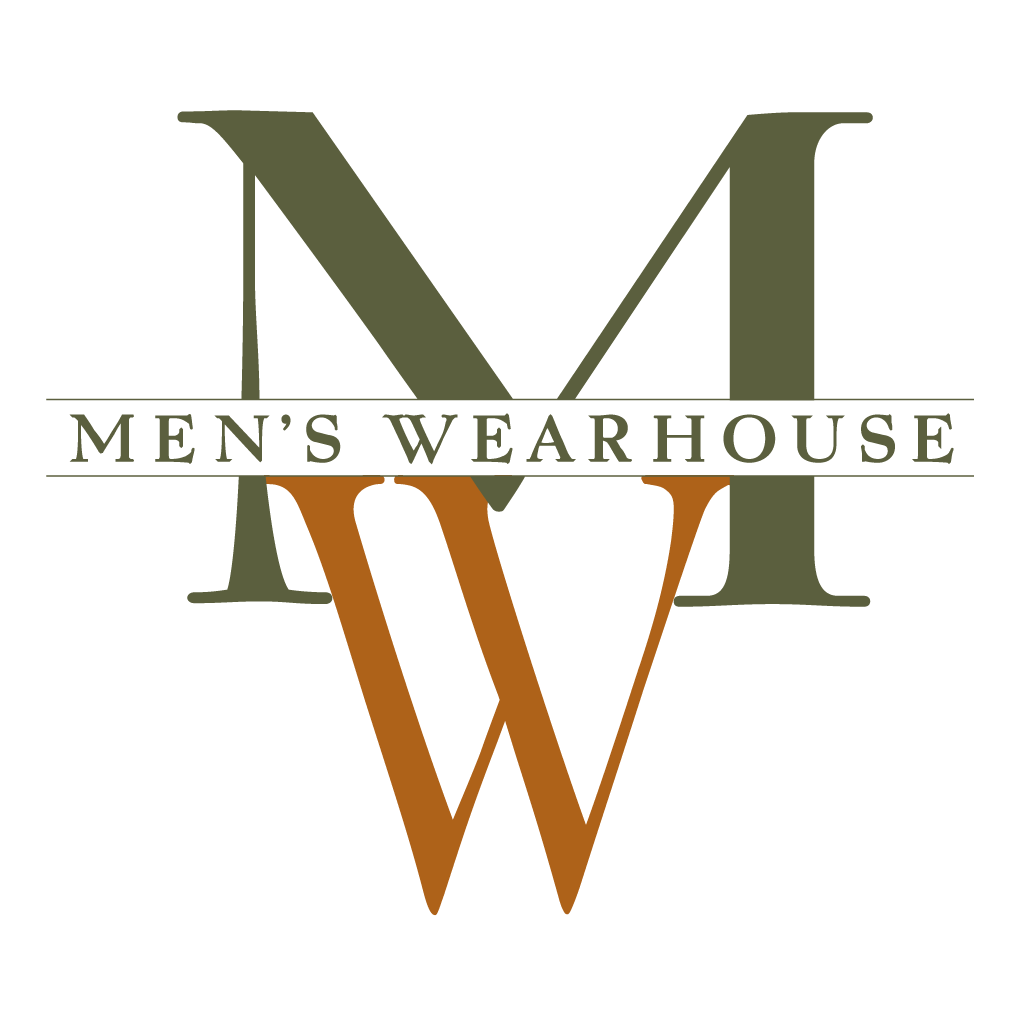
Men's Wearhouse Logo Font
ApparelMen's Wearhouse is a retail chain that specializes in men's clothing, including suits, sports coats, dress shirts, and shoes. The company was founded by George Zimmer in 1973 and is based in Houston, Texas.
The Men's Wearhouse logo of the clothing brand uses a display serif font called Belucian Demi. Designed by David Berlow in 1990 for Smart magazine, Belucian was inspired by Lucian Bernhard's designs from 1925.